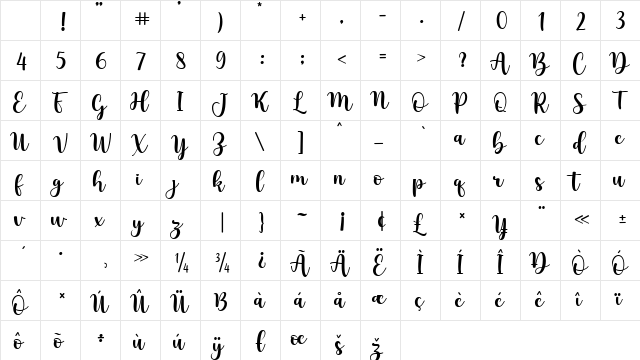
Complete July Girl Regular glyph index. Displaying only characters natively supported by July Girl Regular font.
July Girl is a composed and adaptable typeface that performs quietly and consistently across a wide range of design contexts.